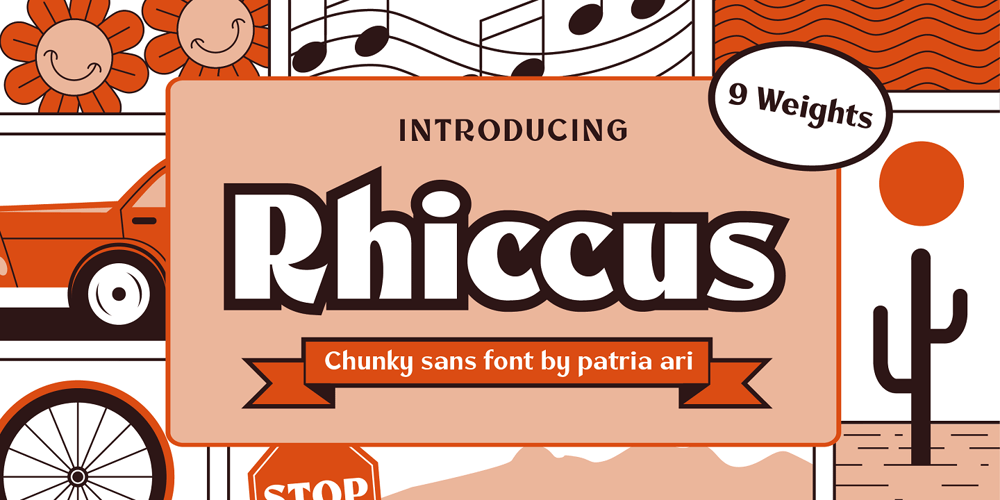
Rhiccus Font Family was designed by Patria Ari Wijonarko and published by Patria Ari. Rhiccus contains 9 styles and family package options. Rhiccus is inspired from vintage and classic look. This font is suitable for any design like branding,print templates, fashion, print templates, & more. With more than 9 variants, this font works well to mix and match with each other to best fit the occasion.